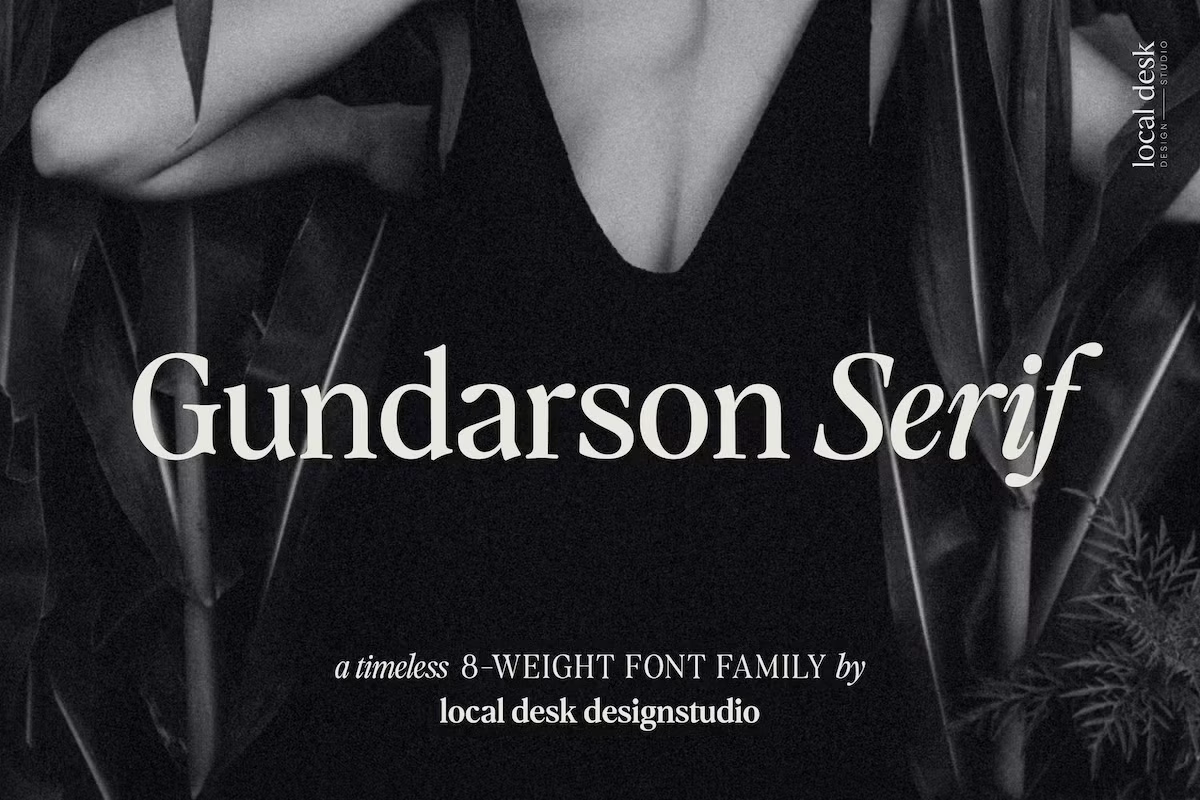
Gundarson Serif Family Font Free Download is a bold and elegant typeface family designed for impactful headlines, editorial layouts, branding, and premium packaging. With multiple weights and a strong serif structure, it brings both authority and sophistication to any design. Please note that you must purchase this font for commercial use, but it is available as a free download for testing purposes. Whether you're crafting a luxury brand or a modern magazine spread, Gundarson Serif Family Font Free Download offers timeless style and versatile functionality for high-end typography.